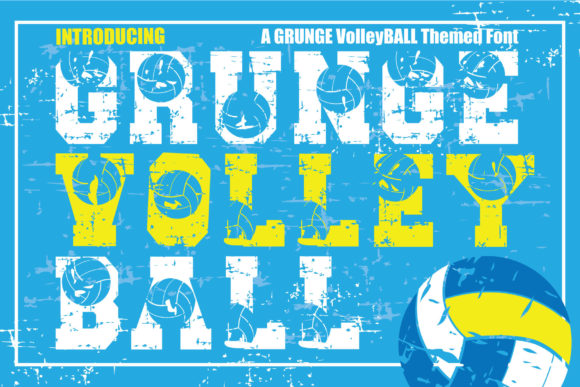
Unleash your creative spirit and dive into the world of sports with Grunge Volleyball Font, a bold and assertive display font that will ignite your designs with energy and passion. Sharp, cool, and utterly captivating, this font is the ultimate choice for expressing your love for the game.
Picture this: your designs transformed into dynamic masterpieces that radiate the thrill of the court. Grunge Volleyball Font's unique textures and striking lines add an edgy touch to logos, posters, flyers, and social media graphics, making your work stand out from the crowd.
With Grunge Volleyball Font, you'll discover a font that's as versatile as a star athlete. Its commanding presence works wonders for sports-related projects, but its versatility extends far beyond the court. Experiment with this font in fashion designs, music posters, and even quirky invitations – the possibilities are limitless.
Don't settle for ordinary fonts that blend into the background. Embrace the boldness of Grunge Volleyball Font and watch your designs soar to new heights. Its carefully crafted characters will add a touch of individuality and style to your work, captivating audiences and leaving a lasting impression.